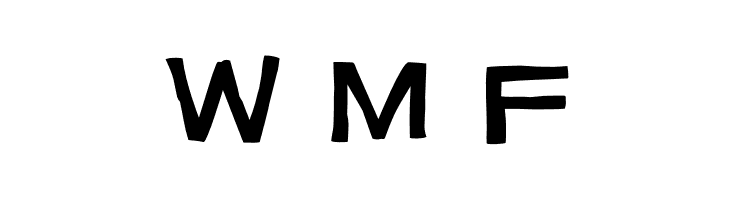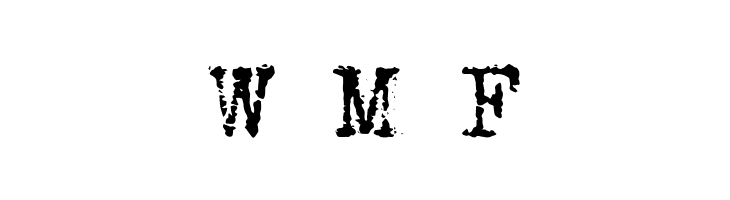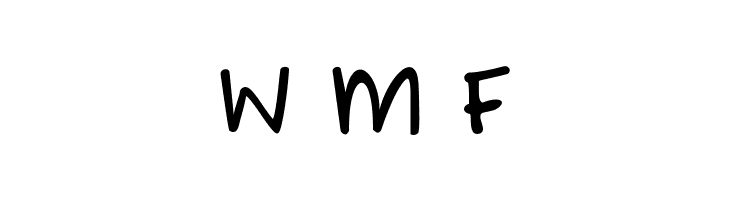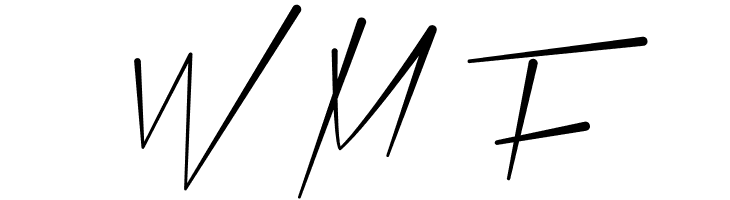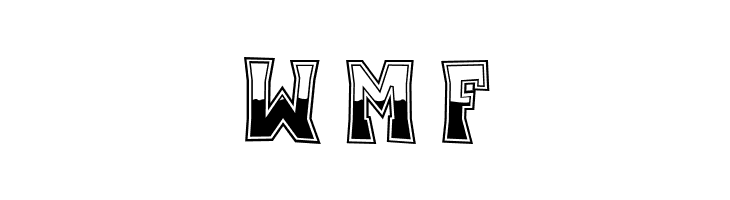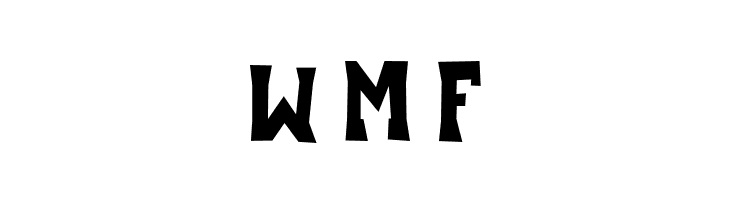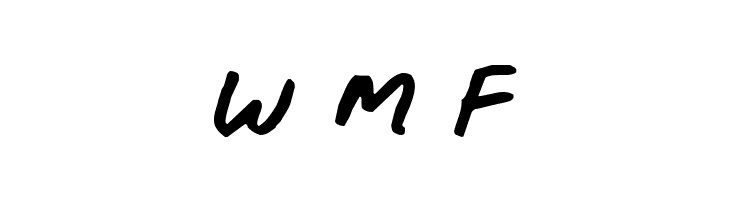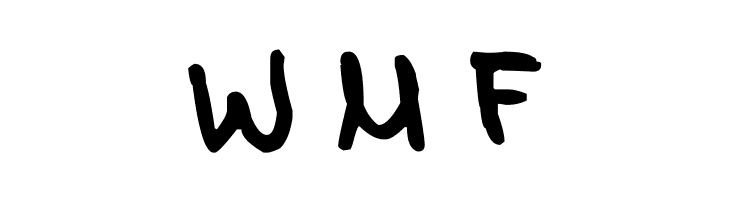
A bold, distressed typewriter-style font with a grunge, vintage aesthetic.
A playful, casual handwritten font with rounded, consistent strokes.
A dynamic, expressive handwritten font with fluid strokes and lively characters.
A dynamic, handwritten script font with bold, expressive strokes.
A bold, decorative font with a vintage, three-dimensional style.
A bold, vintage-style font with a rugged, handcrafted appearance.
A playful, hand-drawn font with bold, rounded characters and a whimsical style.
A bold, handwritten-style font with a casual and dynamic appearance.